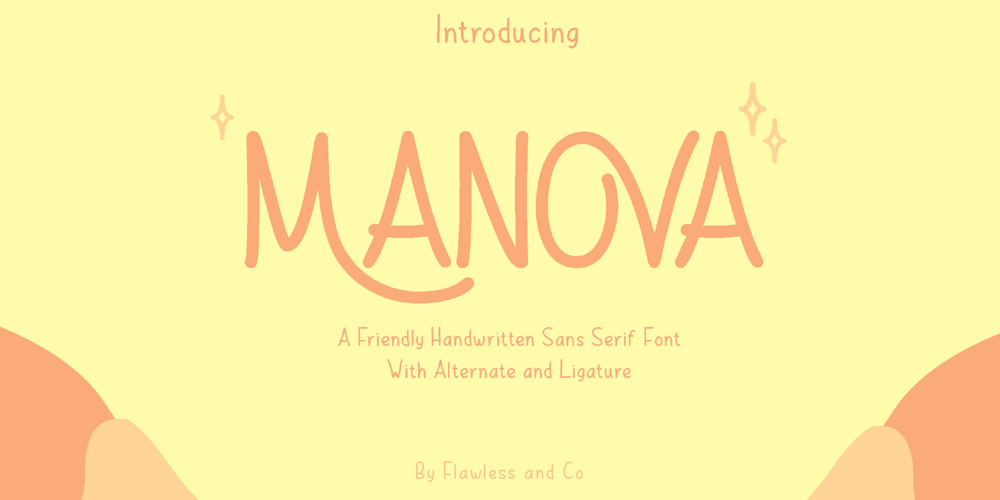
Manova
Manova font
Manova Font Family was designed by Achmad Yani and published by Flawlessandco. Manova contains 1 styles and family package options. Introducing “Manova” – a friendly and approachable handwritten sans serif font that adds a touch of warmth and authenticity to your designs.There’s some connected letters and some alternates that suitable for any graphic designs such as branding materials, t-shirt, print, business cards, logo, poster, t-shirt, photography, quotes .etcThis font support for some multilingual. Also contains uppercase A-Z and lowercase a-z, alternate character, numbers 0-9, and some punctuation.If you need help, just write me! Thanks so much for checking out my shop!